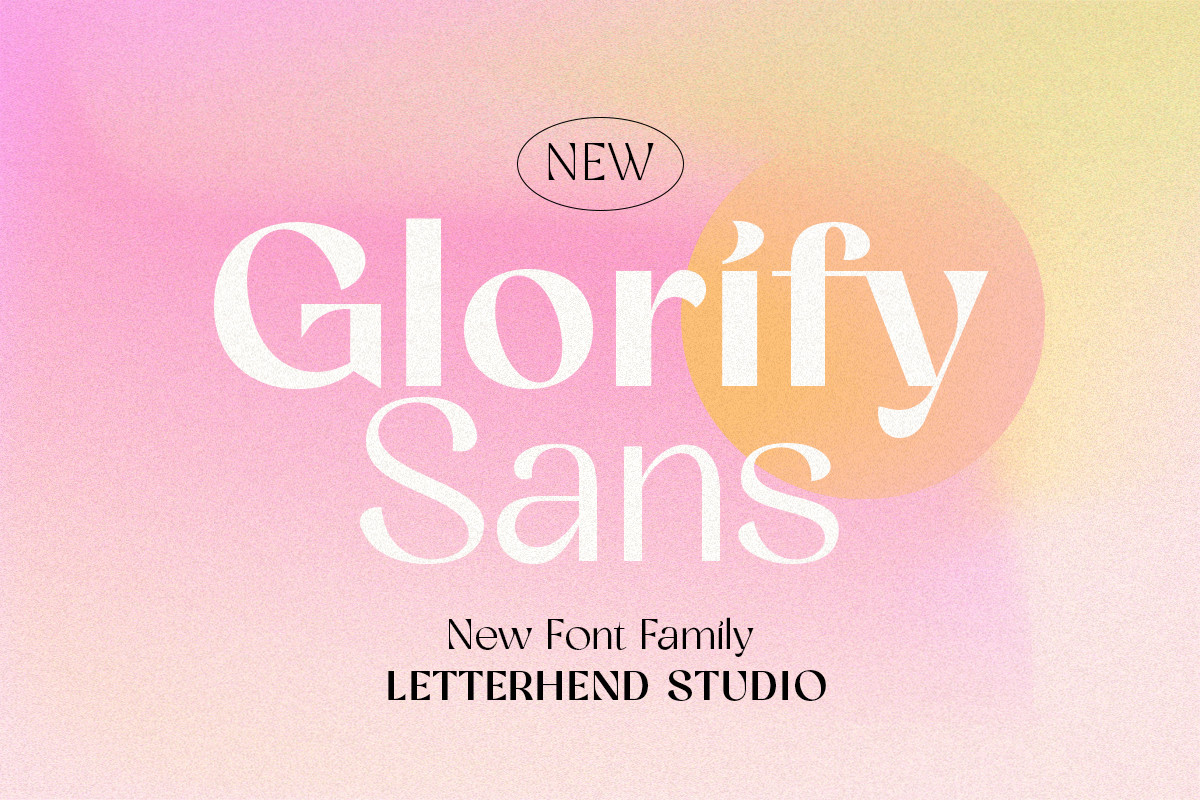
Glorify Sans Font
Perfect for branding, headlines, logos, packaging, and editorial designs.
The Glorify Sans Font excites designers with its clean, modern sans-serif style that offers versatility and clarity for any creative project.
Font families: Glorify Sans Regular, Glorify Sans Bold, Glorify Sans Italic.
One of the key strengths of Glorify Sans Font is its balanced design that combines simplicity with elegance, allowing your message to be delivered with impact and professionalism.
In branding, Glorify Sans communicates modernity, confidence, and approachability. It pairs beautifully with minimalist layouts, vibrant colors, and clean design elements to create a strong and memorable identity.
For digital projects, this font enhances website headers, social media graphics, and promotional materials, giving your content a polished and engaging look.